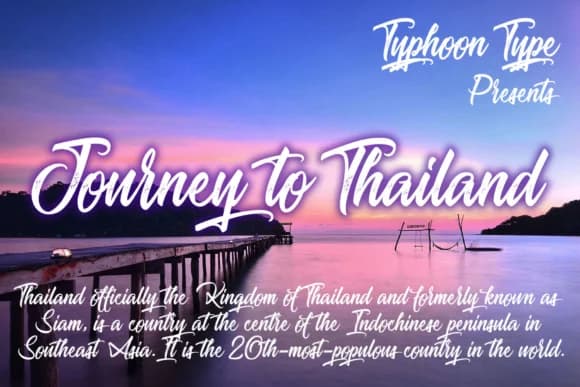
About Journey to Thailand Font
Journey to Thailand by Typhoon Type™ is a flowing handwritten script that combines natural letterforms with surprising sophistication. Rather than relying on overly ornamental flourishes, this font's confident, consistent strokes create an approachable elegance that feels both contemporary and warmly personal. Its legibility across sizes makes it work equally well as a headline or supporting text element, giving you genuine design flexibility whether you're working on large displays or smaller composition.
From wedding invitation suites and personalized greeting cards to boutique skincare labels and Etsy product packaging, Journey to Thailand brings authentic character to projects where warmth and sophistication matter most. The font's organic quality feels equally at home on artisan food packaging, where consumers expect evidence of real craftsmanship. Social media graphics and hand-lettered event signage also benefit tremendously from the script's natural flow, which conveys authenticity without sacrificing professional polish.
What makes this script particularly valuable for working designers is its reliable performance across both digital and print applications. The well-constructed character set ensures consistent rendering whether you're creating animated social media content, designing elaborate print collateral, or developing cohesive brand identities from the ground up. Get Journey to Thailand from Creative Fabrica and introduce a genuinely handwritten dimension to your next design project.
Journey to Thailand Font is a script font that shines as a display or heading face. Pair it with a clean sans-serif or serif font for body text — the contrast creates a clear hierarchy while the two styles stay balanced and easy to read.